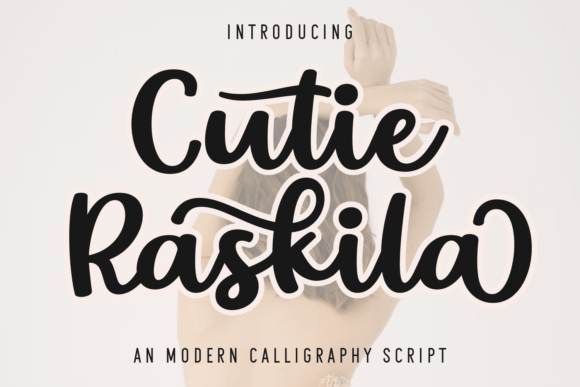
The Perfect Blend of Whimsy and Elegance: Cutie Raskila Font
As I sat at my desk, staring at a blank sheet of paper, I couldn’t help but feel the weight of a creative deadline looming over me. I needed a font that would capture the essence of the occasion, something that would transport my words to a world of wonder and magic. That’s when I stumbled upon the enchanting Cutie Raskila Font, and my creative block was instantly lifted.
With its delicate, cursive script, Cutie Raskila Font is a true masterpiece. Perfect for wedding invitations, thank you cards, quotes, and more, this font brings a touch of elegance and whimsy to any design. As a designer, I can attest to the value of having a versatile font like Cutie Raskila Font in your arsenal – it’s a game-changer for any project that requires a handwritten feel.
- Font Family: Cutie Raskila is a unique, hand-drawn font designed to add a touch of playfulness and whimsy to digital and print designs.
- Character Set: The font includes a comprehensive set of characters, including uppercase and lowercase letters, numbers, and punctuation marks.
- Unique Characteristics: The font’s hand-drawn design and quirky charm make it perfect for creating eye-catching headlines, titles, and other display text.
Designer Review: Cutie Raskila Font
I recently had the chance to work with the Cutie Raskila Font, and I must say it’s a delightful addition to any design project. ✨ The font’s playful and whimsical feel immediately catches the eye, making it perfect for projects that need a touch of fun and personality.
- Unique Character Sets: The font features a range of unique characters, including special letters and punctuation marks that add to its charm.
- High-Quality Renders: The font renders beautifully across various devices and screen sizes, ensuring a consistent look and feel.
- Easy to Read: Despite its playful feel, the font is still easy to read and understand, making it a great choice for a wide range of projects.
However, there are a few limitations to keep in mind. ⚠️ The font may not be the best choice for projects that require a more formal or professional tone, as it can come across as a bit too playful or childish.
Overall, I’m impressed with the Cutie Raskila Font and would definitely recommend it for projects that need a touch of personality and whimsy. Its unique character sets and high-quality renders make it a great choice for designers looking to add some fun to their work.
Use Cutie Raskila Font to add a touch of whimsy and playfulness to your designs.
Combine the font with bright colors and bold graphics to create eye-catching visuals.
Use Cutie Raskila Font for:
Children’s book illustrations
Party invitations and decorations
Food and drink branding
Children’s clothing and accessories
Alternatives to Cutie Raskila Font
Great Vibes Font is a modern, elegant script font ideal for creating a sophisticated and luxurious feel in your designs. It is perfect for use in branding, advertising, and editorial content. Great Vibes Font has a more refined and polished look compared to Cutie Raskila Font, which makes it suitable for high-end projects.
Comparison: Great Vibes Font has a more precise and refined touch, whereas Cutie Raskila Font has a more playful and casual feel.
Lobster Font is a popular, cursive script font that adds a touch of elegance and sophistication to your designs. It is suitable for use in titles, headings, and other display typography. Lobster Font has a more classic and timeless look compared to Cutie Raskila Font, which makes it ideal for traditional and vintage-inspired projects.
Comparison: Lobster Font has a more traditional and classic feel, whereas Cutie Raskila Font has a more modern and playful look.